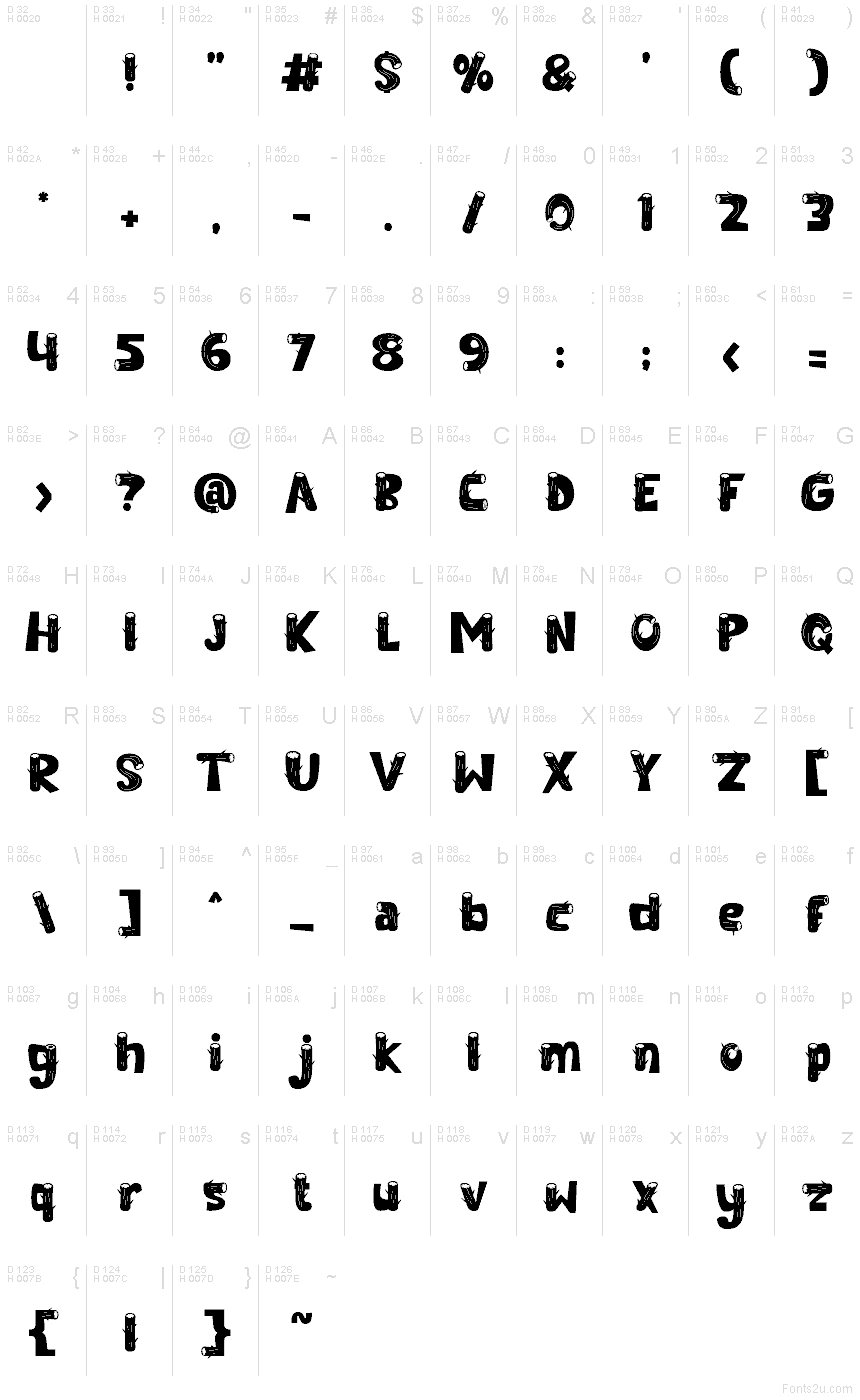
Cedar Heaven Wood
Cedar Heaven Wood font by PutraCetol Studio is a bold decorative typeface with a wooden, woodcut texture merged with an organic look. Its artistic letters have a friendly character and classy feel suitable for modern or retro designs. Use its glyphs for both short and long text paragraphs to get the most out of this beautiful font.
This free display font fits vast design types which include books, magazines, branding items, greeting cards, logos, insignia badges, packaging items and others.